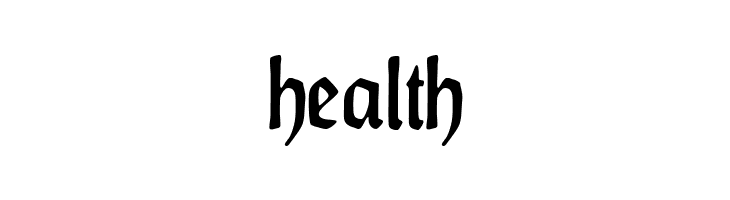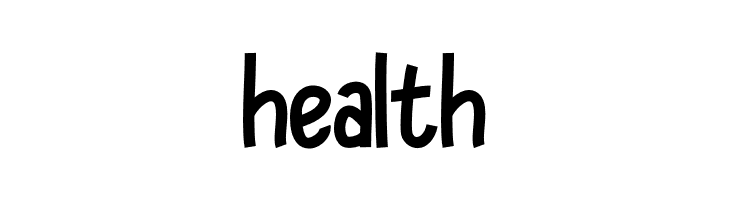
A classic blackletter font with ornate, medieval-inspired letterforms.
A playful, handwritten font with a bold and friendly style.
A futuristic, circuit-inspired font with bold, geometric letterforms.
A modern, geometric sans-serif font with uniform strokes and clear legibility.
A sleek, modern, and thin italic font with a minimalist design.
A bold, italic sans-serif font with a modern and assertive style.
A clean, modern sans-serif font with balanced proportions and high legibility.
A sleek, minimalist font with clean lines and a modern aesthetic.
A modern, italicized font with a sleek and professional appearance.
A modern italic font with a sleek, streamlined design and medium contrast.